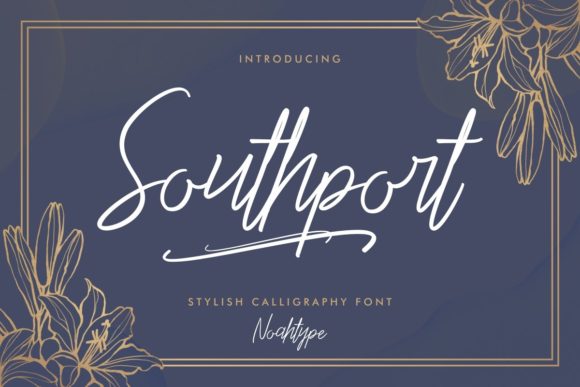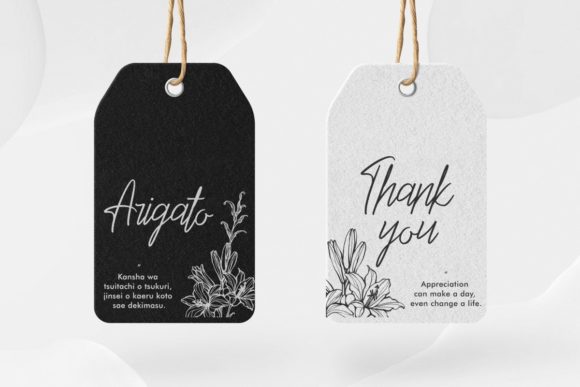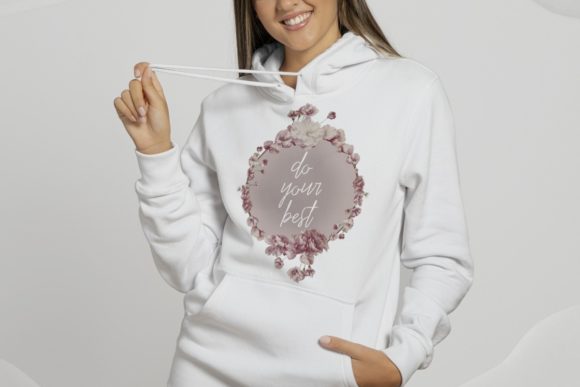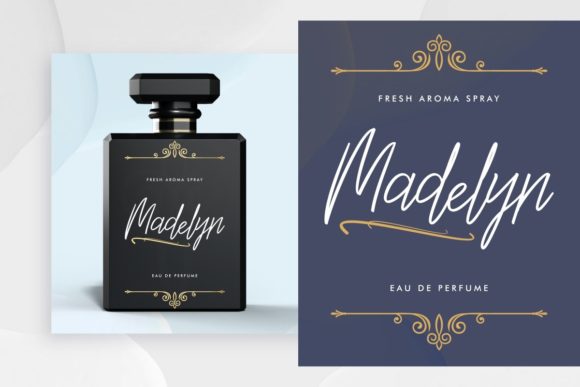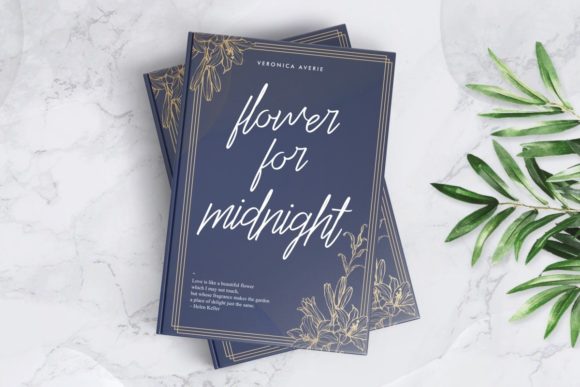
About Southport Font
Southport is a stylish signature script font with elegant characters. This font is crafted carefully in every single scratch, created to look as close to natural handwriting as possible so that it can create the perfect combination on each glyph.
This awesome script is for anyone who needs elegant and stylish typography.
Southport will be awesome for professional photography, wedding, engagement, branding, invitations, florist, hairstylist, makeup artist, event organizer, movie, music, festival, promotions, social media, etc